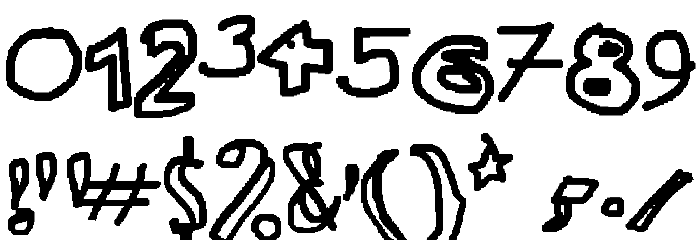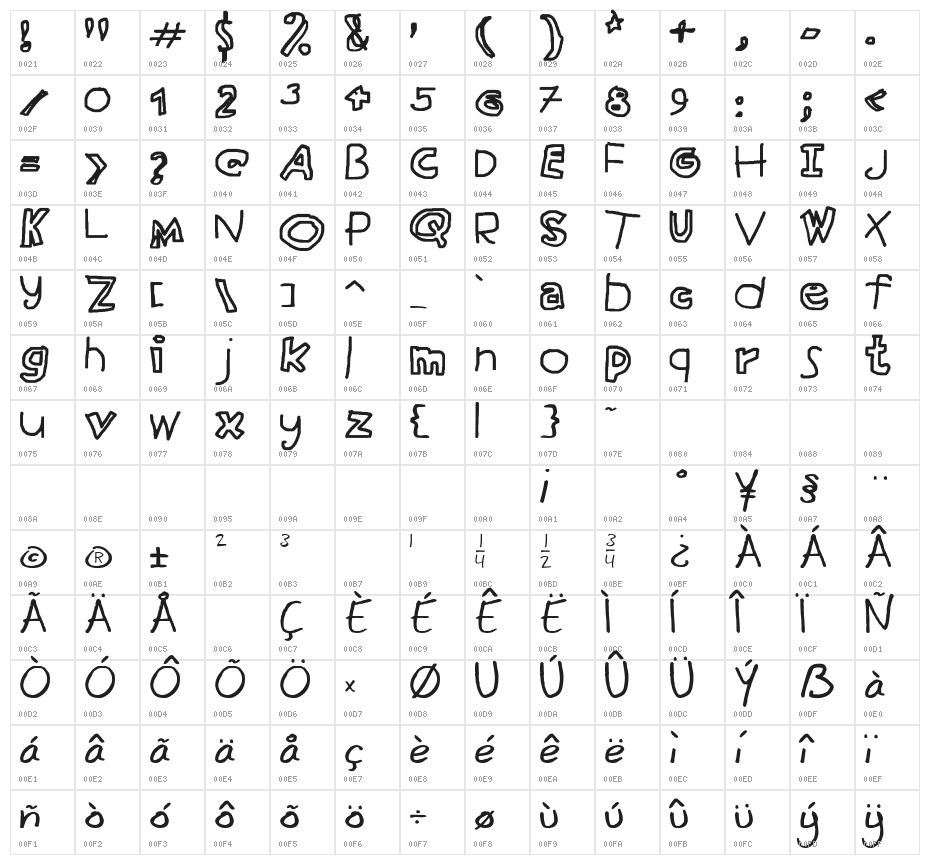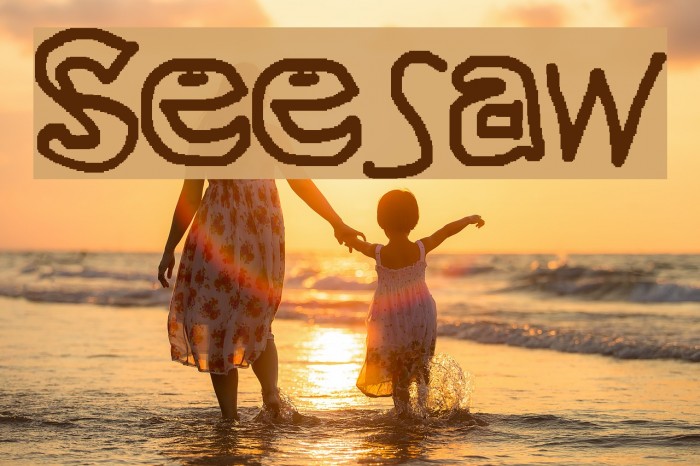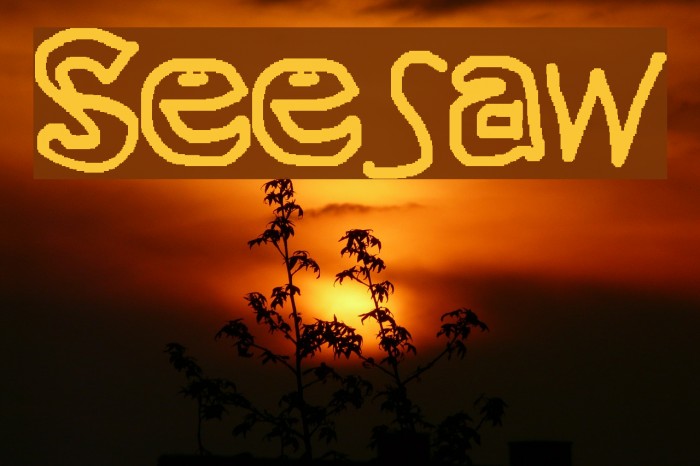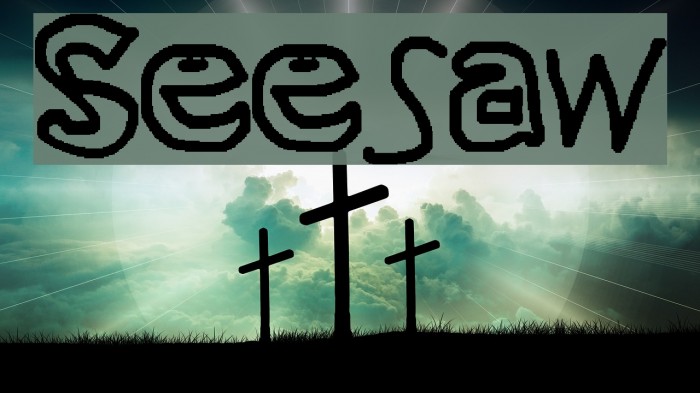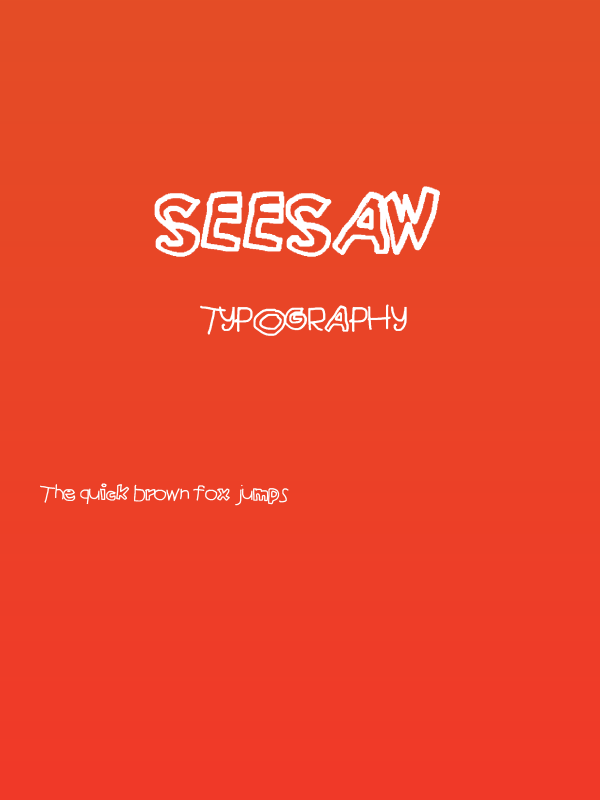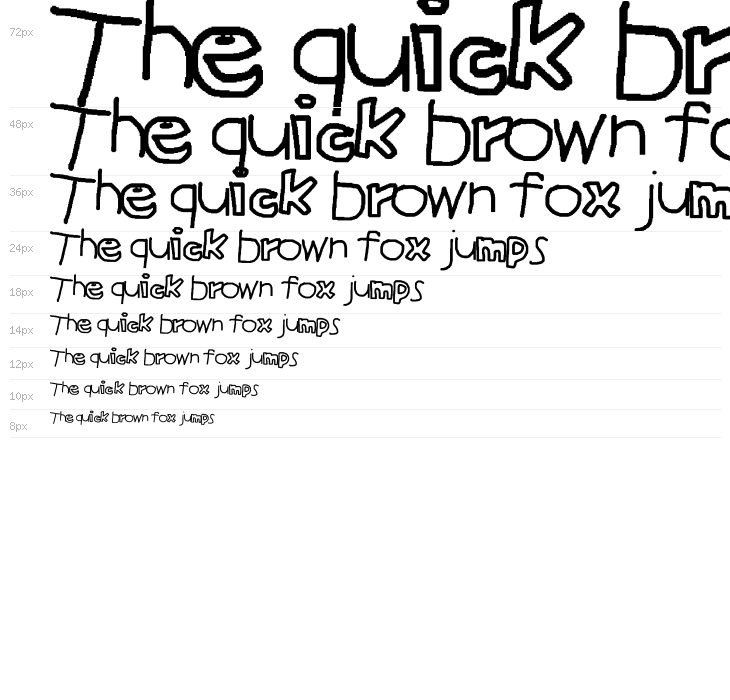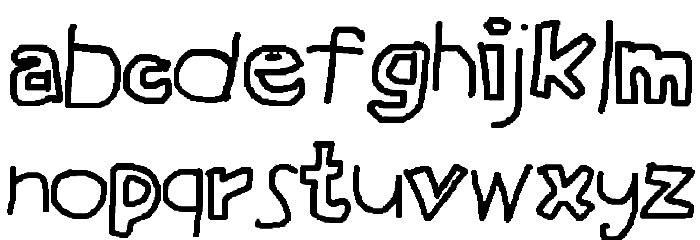
Seesaw Font
Seesaw Description
This playful and quirky font features a hand-drawn style with uneven lines and a casual, whimsical appearance. Each character has a unique, slightly irregular shape, giving it a lively and dynamic feel. The uppercase and lowercase letters maintain a consistent style, with rounded edges and a friendly demeanor. Numbers and special characters are equally expressive, adding to the font's overall charm. This font is perfect for projects that require a fun and informal touch, such as children's books, playful branding, or creative posters.
| Proposed Projects | Ideal for children's books, playful branding, creative posters, and informal invitations. |